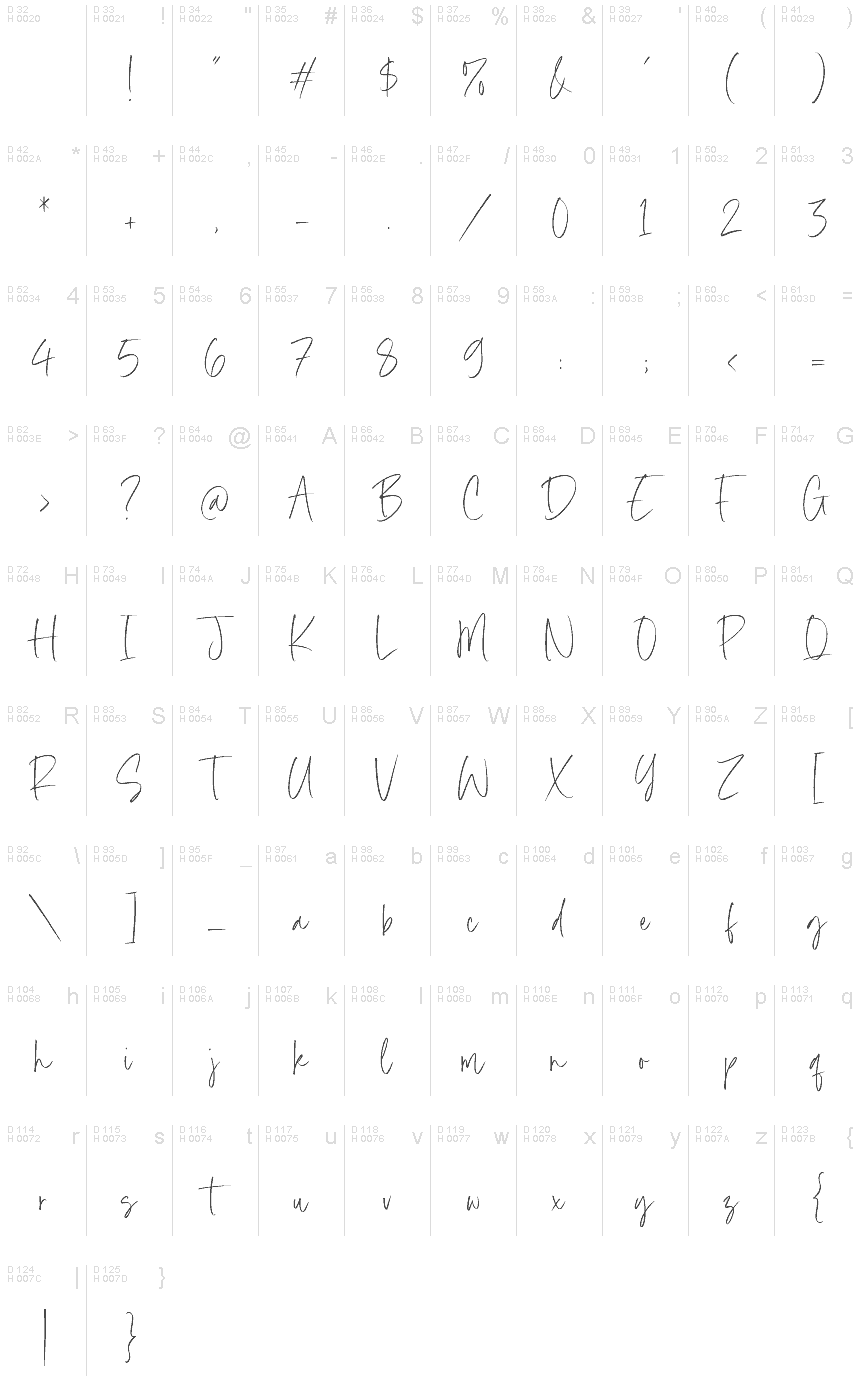
Christoper Brothers
Christoper Brothers font by Timur Type is a light handwritten signature font that exudes casual elegance and contemporary charm. Its subtle artistic flair adds a personal touch to any project, making it an ideal choice for designs that require an authentic and unique look.